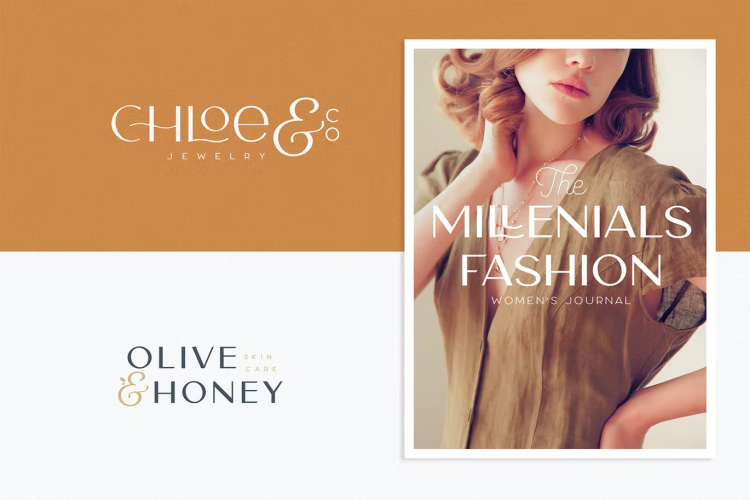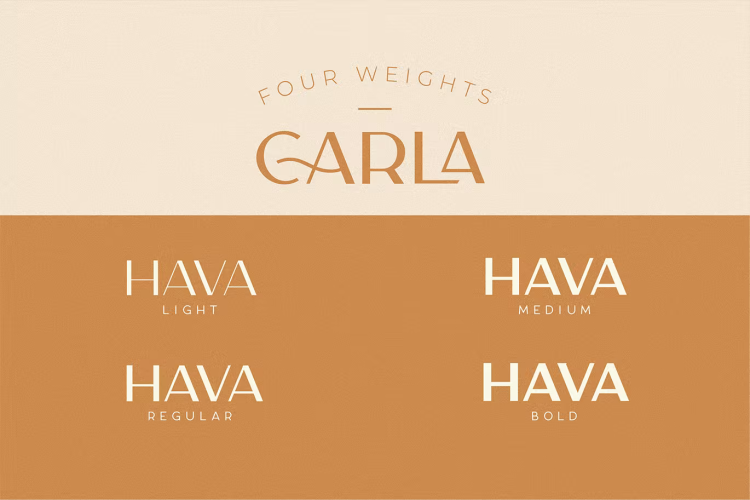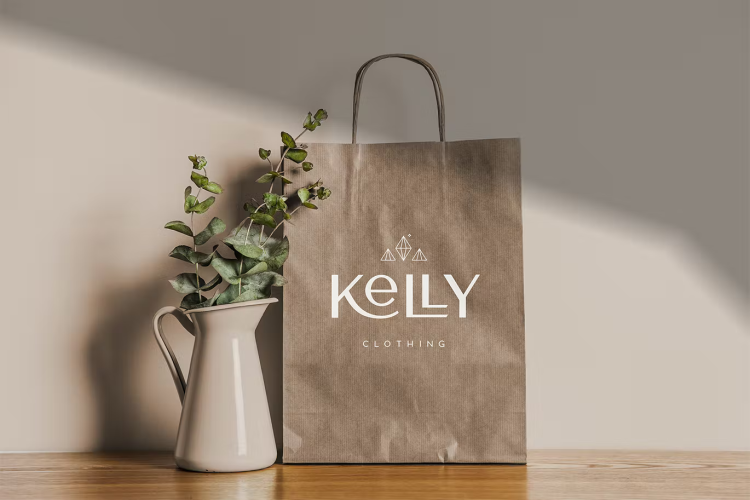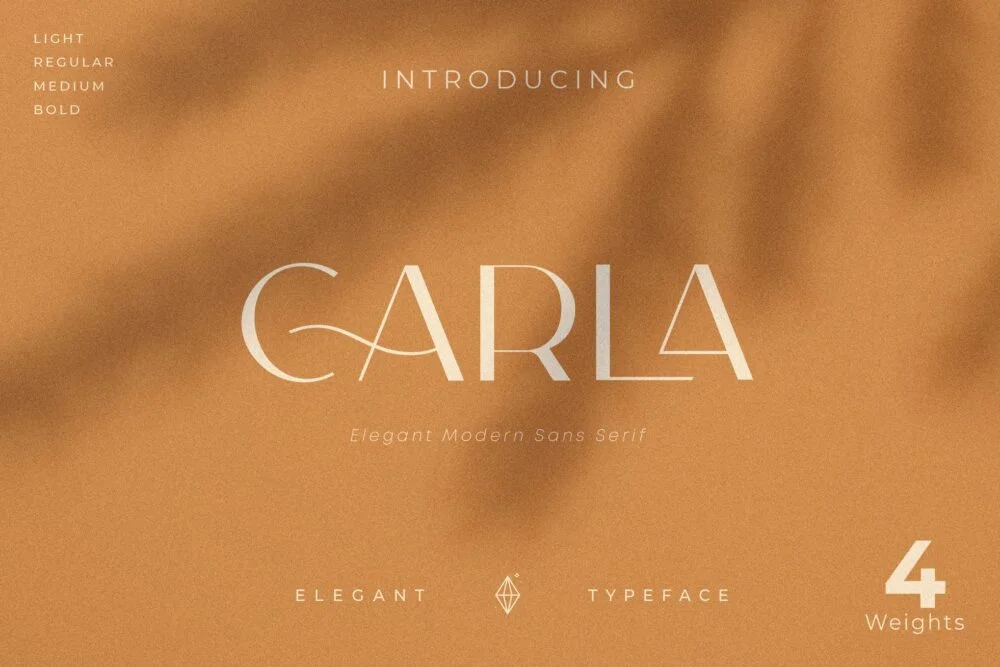
Carla Font
Carla Font is a Minimalist Modern Elegant vintage font with beautiful ligatures, tons of special alternative glyphs, ornament, and multilingual support. It’s a very vers…
Carla Font is a Minimalist Modern Elegant vintage font with beautiful ligatures, tons of special alternative glyphs, ornament, and multilingual support. It’s a very versatile font that works great in large and small sizes.
Elegant Carla Sans is perfect for branding projects, Logo design, Clothing Branding, product packaging, magazine headers, or simply as a stylish text overlay to any background image.
Where Carla Font works best
Carla Font keeps its shape at 14 and 16 pixels, which is where interface text actually lives. Numbers and capitals stay distinguishable in tables.
Presentations are read at a distance; a clean sans with a strong bold is the safest hierarchy you can build in a hurry.
Simple letterforms survive angles, glare and movement, so Carla Font suits door signs, menus boards and exhibition panels.
What kind of work does Carla Font suit?
It sits in the Sans Serif Fonts group and reads as branding, elegant, minimalist, modern. That makes it a candidate wherever those qualities help: headings, packaging, social graphics and brand work. Set it at the size you plan to use before deciding.